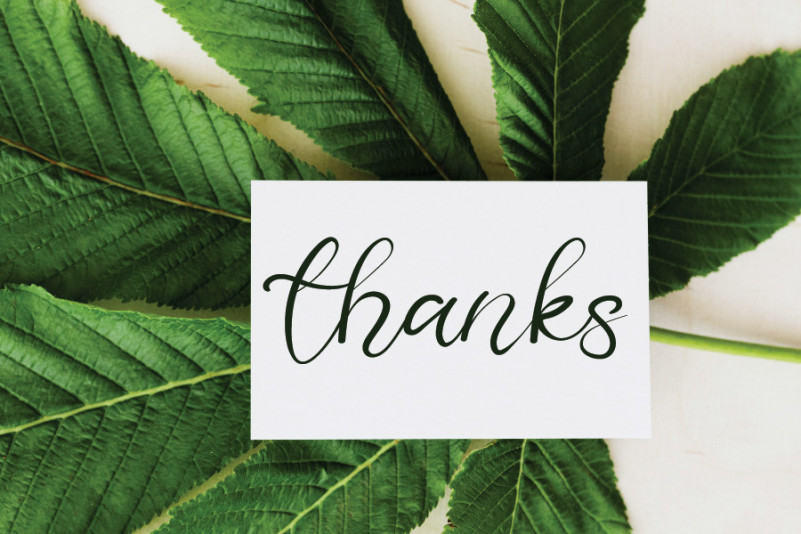
Beautiful Rustic Font
Beautiful Rustic Calligraphy Font
This is a sweet, all round and flexible handwritten font. Warm, quirky and jolly, this font will turn each of your project ideas into real works of art. Have fun with this beautiful font and explore its endless variations.